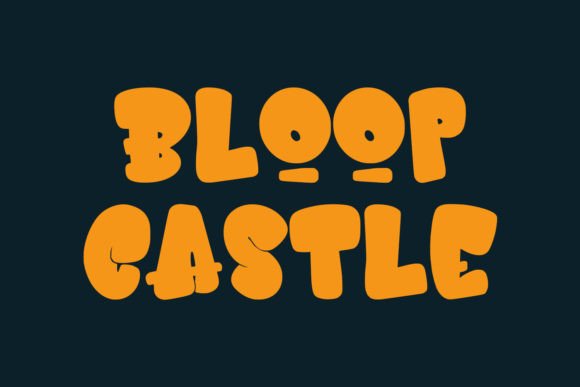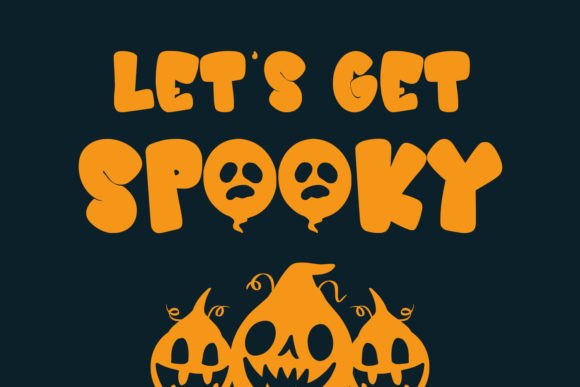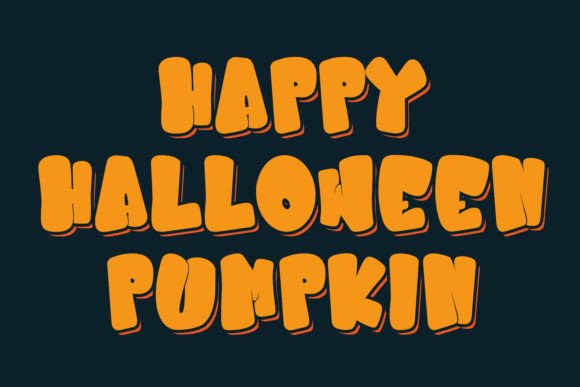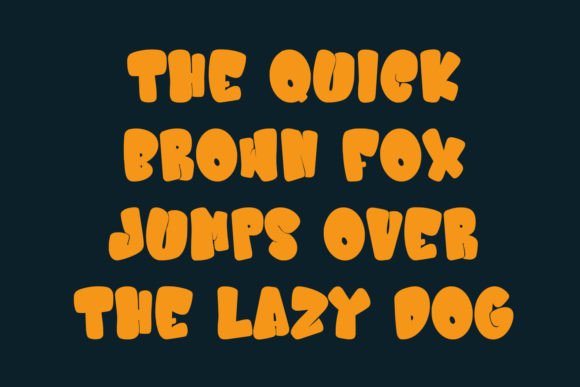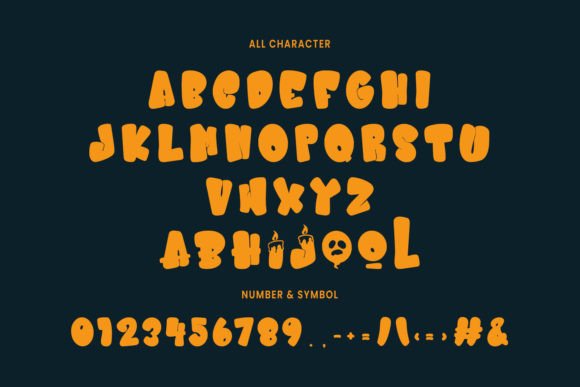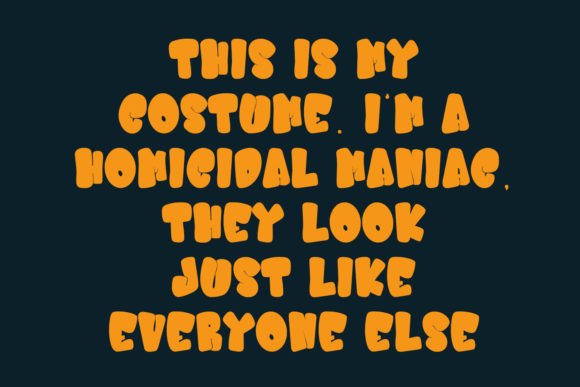
Bloozha Display Font: A Quirky and Versatile Typeface for Creative Projects
Bloozha Display is a unique and interesting display font that has been making waves in the design community. A little bit quirky, this font looks incredibly adept on a wide variety of contexts, making it a versatile addition to any designer’s toolkit. In this article, we’ll take a closer look at the Bloozha Display font, its features, and how you can use it to elevate your creative projects.
What is Bloozha Display Font?
Bloozha Display is a display font that boasts a distinctive and eye-catching style. Its quirky design makes it perfect for use in headlines, titles, and other display text applications. The font’s unique character set and irregular shapes give it a playful and creative feel that’s sure to grab attention.
Key Features of Bloozha Display Font
So, what makes Bloozha Display font so special? Here are some of its key features:
- Unique and quirky design: Bloozha Display font has a one-of-a-kind look that’s sure to stand out in any design.
- Versatile: Despite its quirky design, Bloozha Display font is surprisingly versatile and can be used in a wide range of contexts.
- Highly legible: Despite its playful design, Bloozha Display font is highly legible, even at smaller sizes.
- Supports multiple languages: Bloozha Display font supports multiple languages, making it a great choice for international design projects.
How to Use Bloozha Display Font in Your Designs
So, how can you use Bloozha Display font in your designs? Here are a few ideas to get you started:
Headlines and Titles
Bloozha Display font is perfect for use in headlines and titles, where its quirky design can really shine. Try using it to add a touch of personality to your blog posts, articles, or website headers.
Branding and Logos
Bloozha Display font’s unique design makes it a great choice for branding and logos. Try using it to create a memorable and eye-catching logo for your business or product.
Social Media Graphics
Bloozha Display font is also perfect for use in social media graphics, where its playful design can help your content stand out in crowded feeds. Try using it to create eye-catching Facebook posts, Twitter headers, or Instagram graphics.
Crafting and DIY Projects
If you’re a crafter or DIY enthusiast, Bloozha Display font can be a great addition to your design toolkit. Try using it to create custom signs, labels, or other decorative elements for your projects.
Tips for Using Bloozha Display Font
Here are a few tips to keep in mind when using Bloozha Display font:
- Use it sparingly: Bloozha Display font’s quirky design can be overwhelming if overused. Try using it sparingly to add a touch of personality to your designs.
- Pair it with a simple font: To really make Bloozha Display font shine, try pairing it with a simple font for body text.
- Experiment with colors and textures: Bloozha Display font looks great in a variety of colors and textures. Try experimenting with different effects to find the look that works best for your design.
Bloozha Display font is a unique and interesting display font that’s perfect for designers and crafters looking to add a touch of personality to their projects. Its quirky design, versatility, and high legibility make it a great choice for a wide range of applications. Whether you’re creating headlines, logos, social media graphics, or crafting and DIY projects, Bloozha Display font is sure to be a valuable addition to your design toolkit.